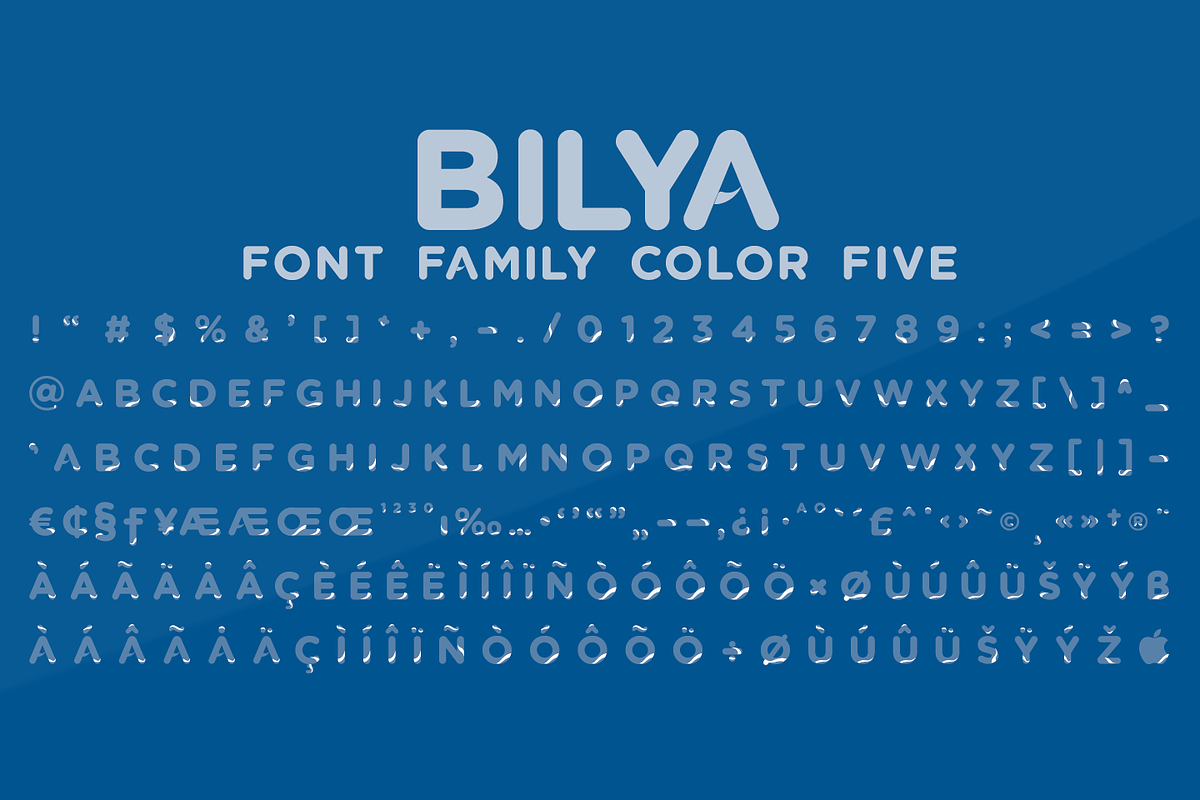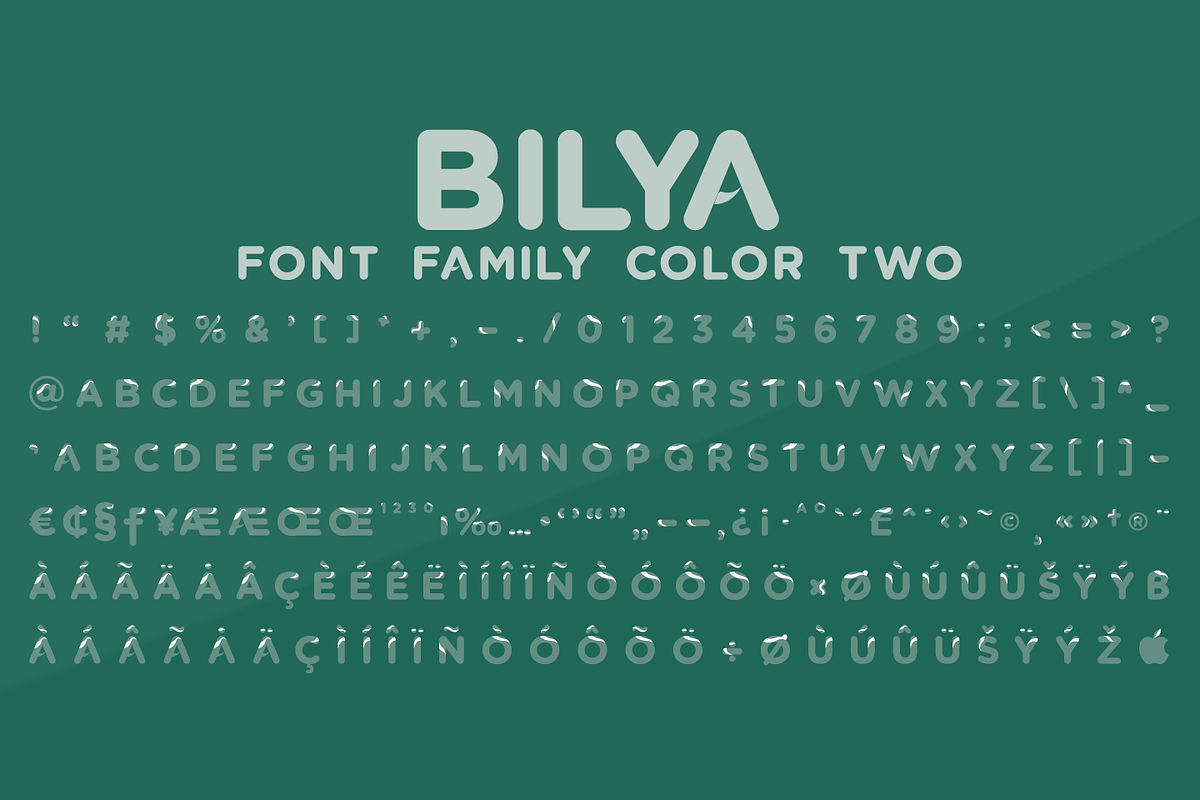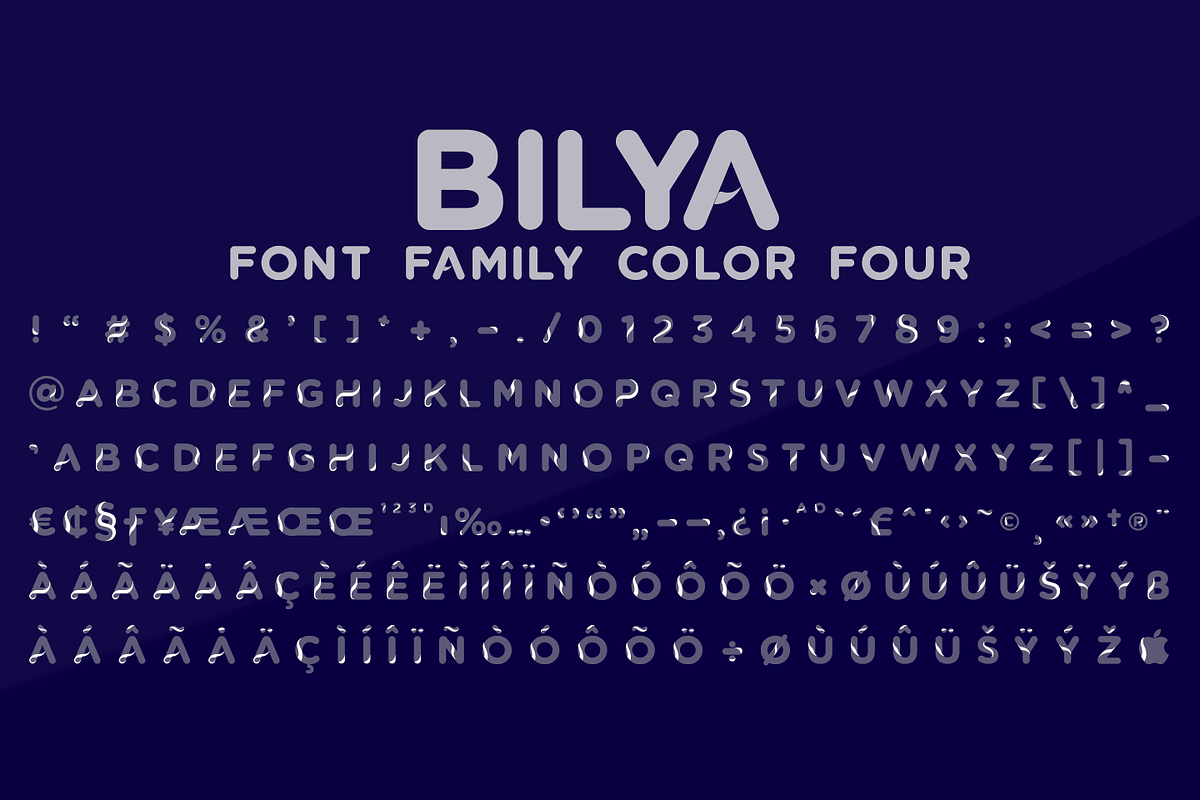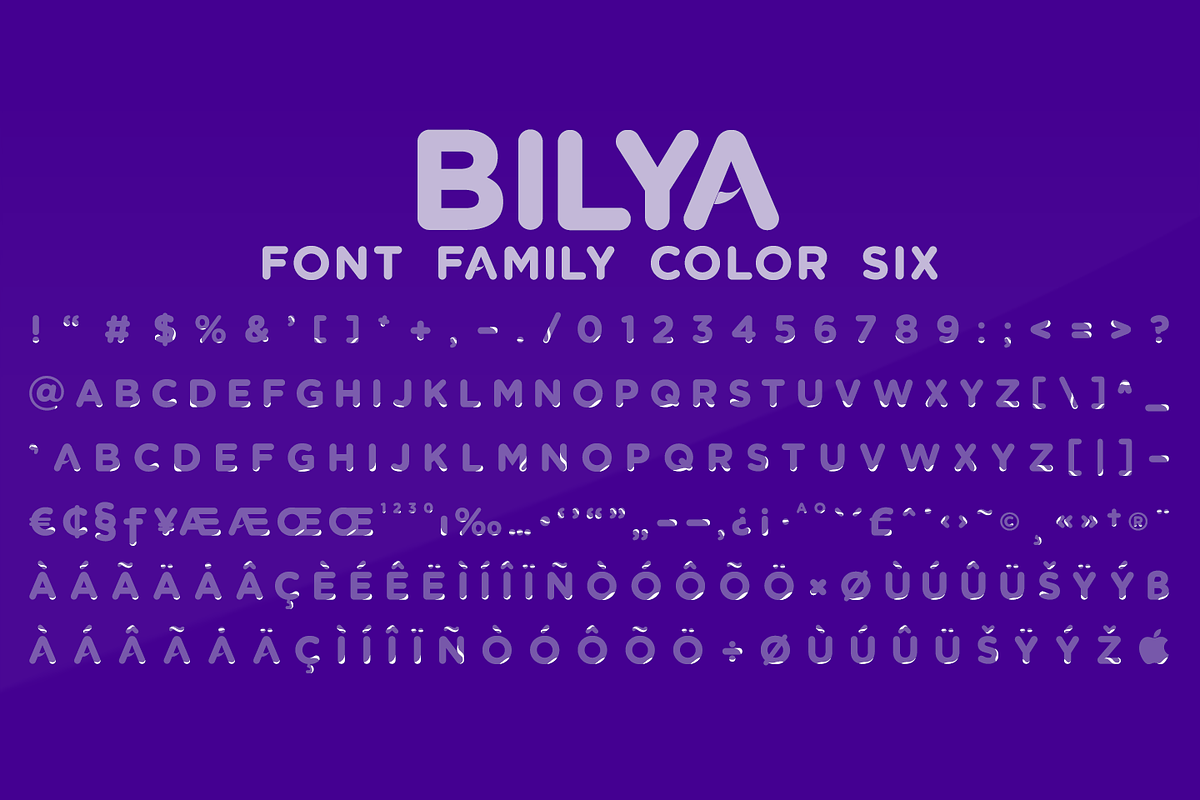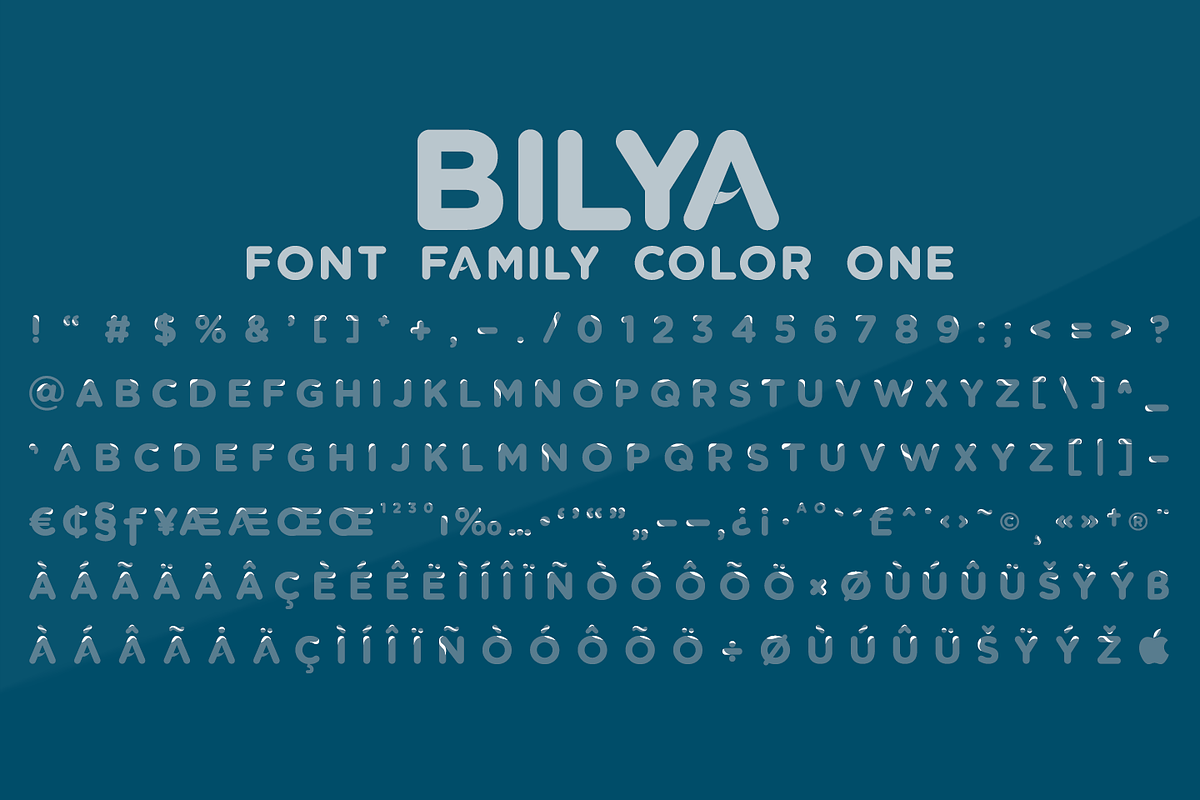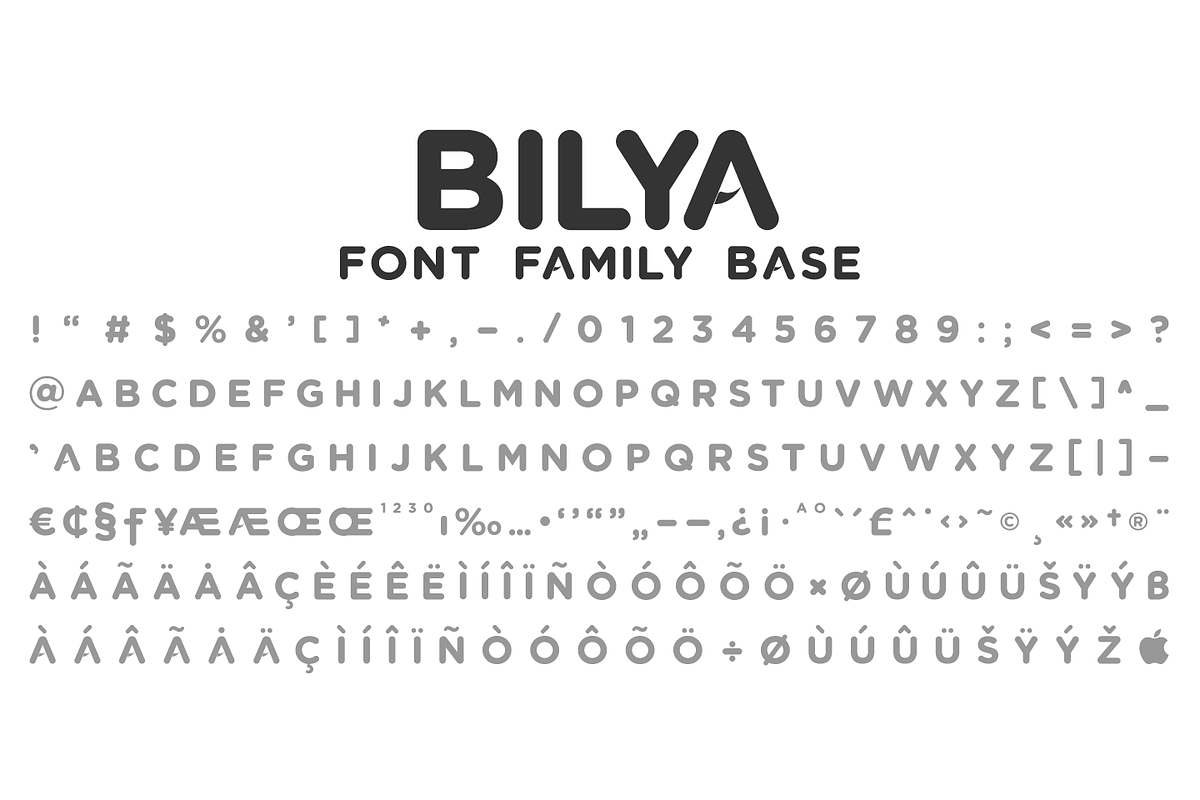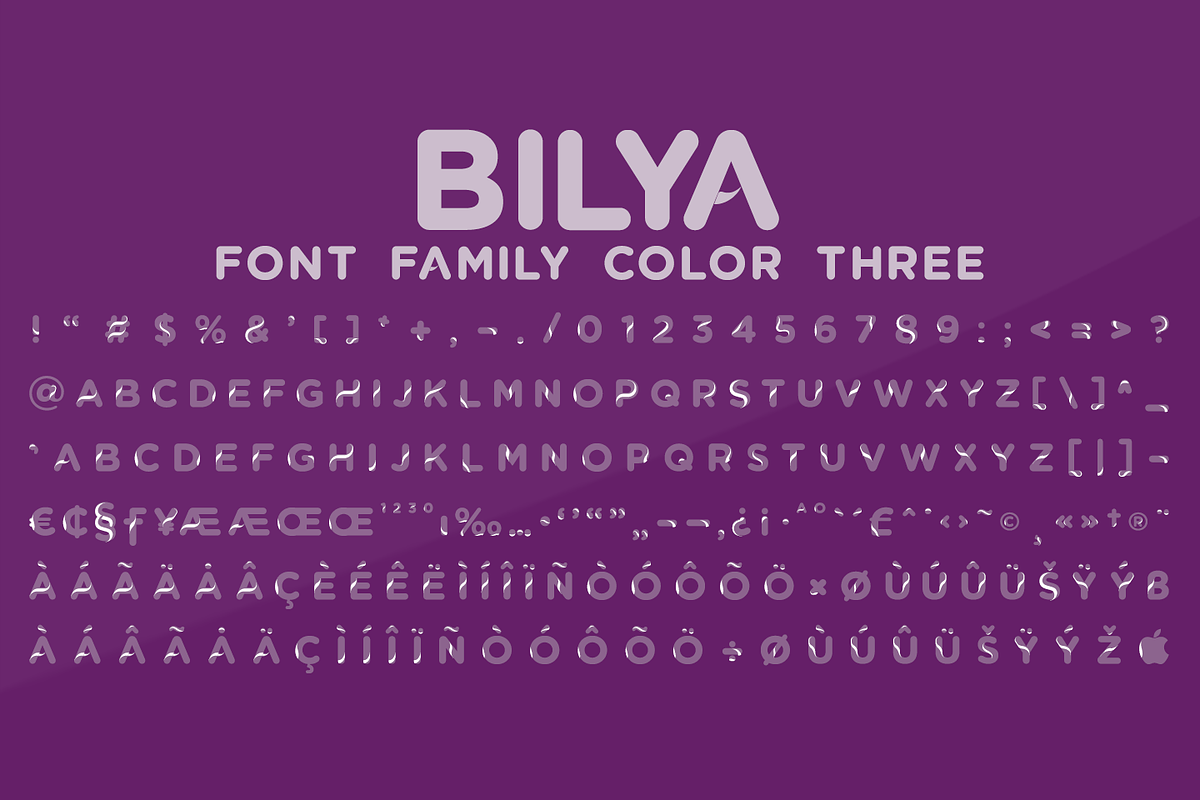
Bilya Layered
Since 2010 I started my research and experimentation in layered fonts, and I immediately understood that the future of creative graphic fonts is precisely the exploration of it. Over the years I have tried different expressions on the use of the layered system ... but I realized that my propensity to use colors in the font led me to the creation of BILYA. The real creative cue of BILYA is the wonderful childhood memories where nostalgia for them generated the creation of it, which I dedicate to all lovers of glass marbles classic game and beyond.
BILYA Base, Outline, Color One, Two, Three, Four, Five and Color Six is a 8 font system that can be layered in different ways to create infinite title effects used commonly in poster and logo design, in flat gradient color style for spectacular 3D emboss styles or realistic 3D logos design projects.
BILYA’s layer combinations give you complete control in producing styles like, modern, 3D, beveled. It can be used alone and/or in layered and allows you adjust leading and kerning. Each font contains the similar metrics, so when your title is set, copy and paste in same position to create different layers styles combinations to build out your desired effect. BILYA works great in any graphics application that allows you to utilize layers or 3D graphics effects.